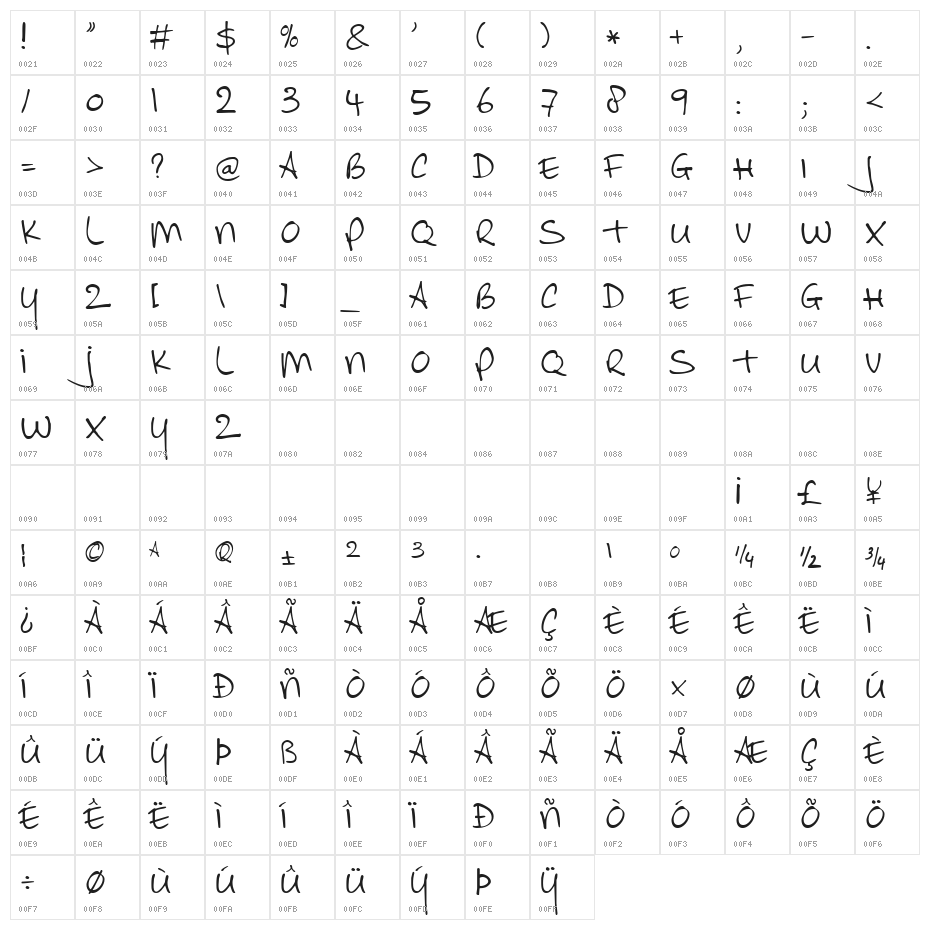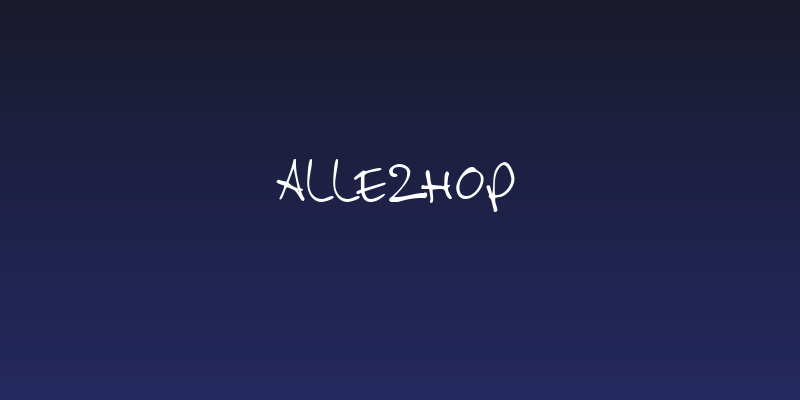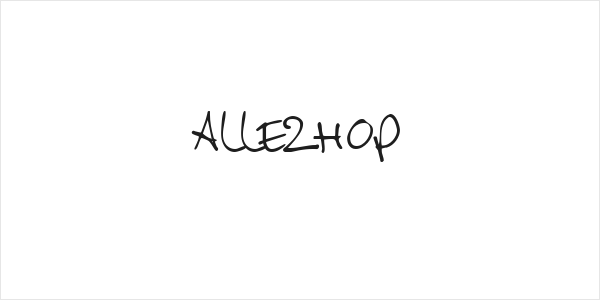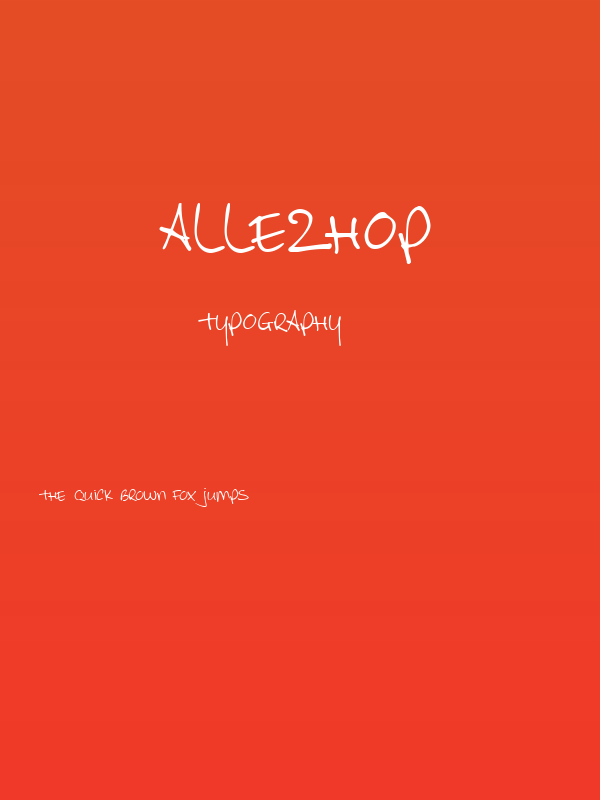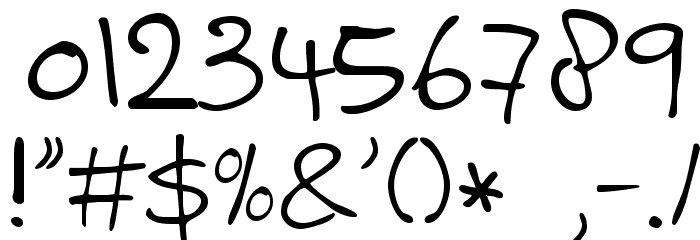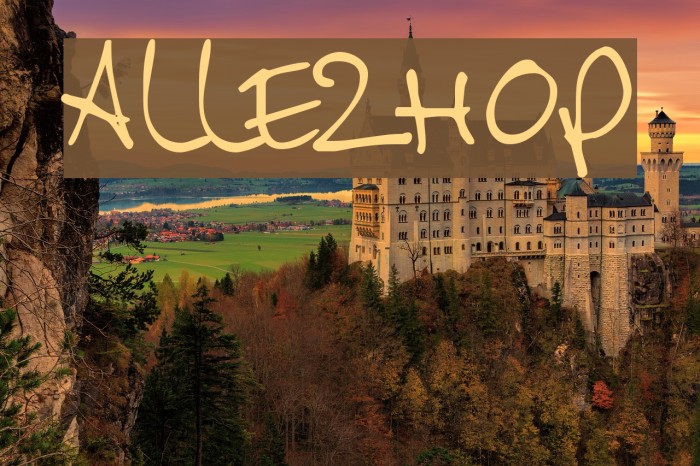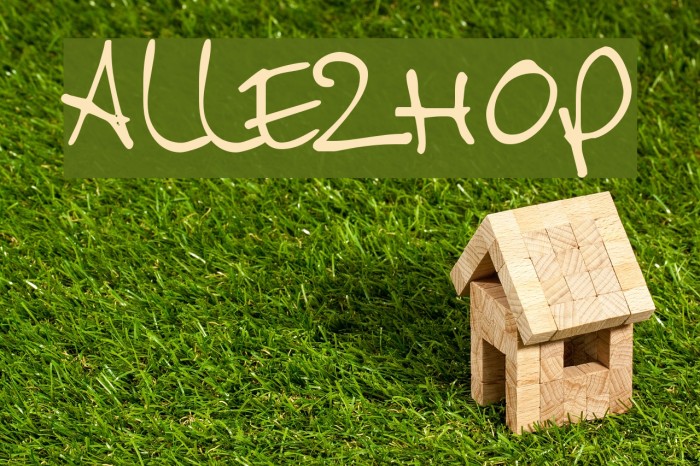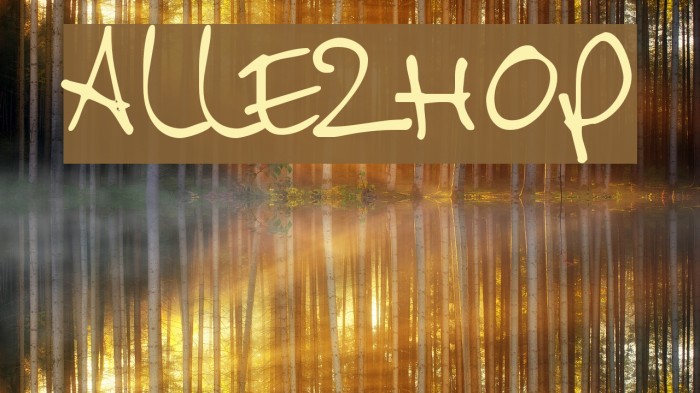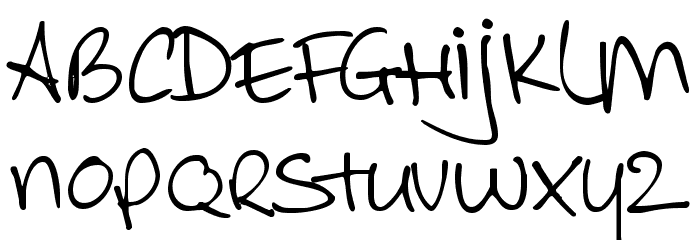
AllezHop Font
AllezHop Description
This font exudes a playful and casual handwritten style, characterized by its fluid and dynamic strokes. The letters are slightly slanted, giving a sense of motion and energy. The uppercase and lowercase letters maintain a consistent style, with rounded edges and a natural flow that mimics authentic handwriting. The numbers and special characters follow the same aesthetic, ensuring uniformity across all glyphs. This font is perfect for projects that require a personal touch, such as greeting cards, invitations, or informal branding. Its legibility and charm make it suitable for both digital and print media.
| Use Case | Headlines, Informal text, Personal projects |
| Proposed Projects | Ideal for greeting cards, invitations, informal branding, and personal projects. |